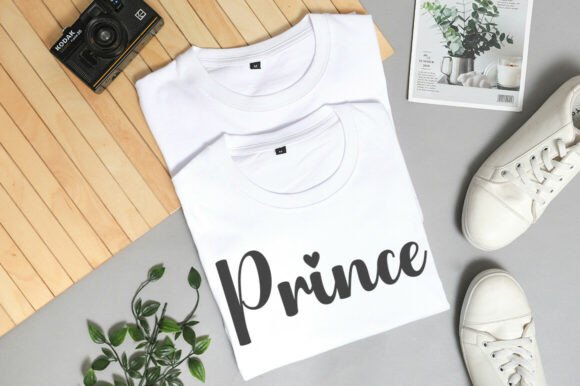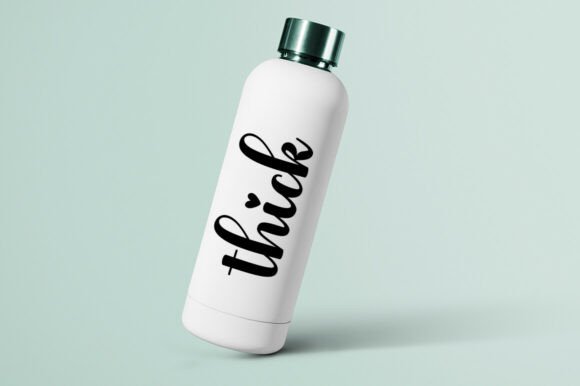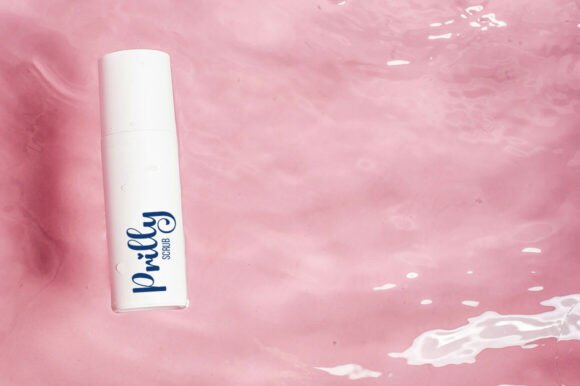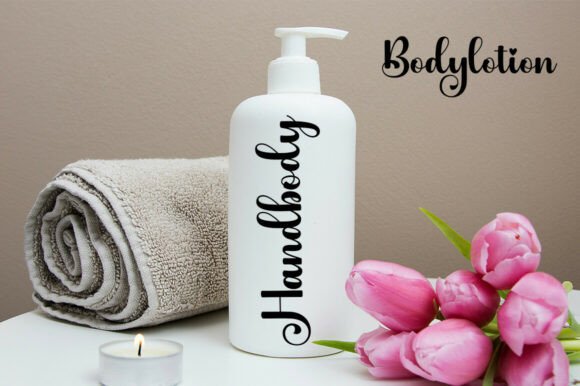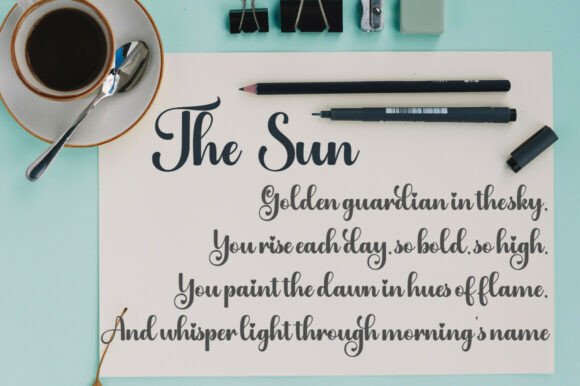
Bali Baby Font: Elevate Your Designs with Elegance and Playfulness
Are you looking for a font that can add a touch of sophistication and whimsy to your designs? Look no further than the Bali Baby Font. This stylish handwritten script font is designed to capture the essence of elegance and playfulness in every stroke, making it perfect for a wide range of creative projects.
The Characteristics of Bali Baby Font
Bali Baby Font is a beautiful example of a handwritten script font that exudes warmth, sophistication, and creativity. Its flowing curves and natural rhythm give it a charming and personal feel that’s perfect for adding a touch of elegance to any design. The font’s graceful design makes it ideal for use in invitations, branding, and social media, where making a lasting impression is crucial.
Why Choose Bali Baby Font?
So, what sets Bali Baby Font apart from other fonts? Here are just a few reasons why designers and crafters love this beautiful font:
• Elegance and Playfulness: Bali Baby Font strikes the perfect balance between elegance and playfulness, making it suitable for a wide range of projects, from formal invitations to social media graphics.
• Unique and Versatile: The font’s unique design and versatility make it perfect for use in various contexts, including branding, advertising, and digital marketing.
• Easy to Read: Despite its elegant and cursive nature, Bali Baby Font is surprisingly easy to read, making it perfect for use in body text as well as headings.
• Highly Customizable: With its extensive range of characters and ligatures, Bali Baby Font can be easily customized to fit your specific design needs.
Using Bali Baby Font in Your Designs
Bali Baby Font is an incredibly versatile font that can be used in a wide range of design projects. Here are just a few ideas to get you started:
• Invitations and Stationery: Add a touch of elegance and sophistication to your wedding invitations, birthday cards, and other stationery with Bali Baby Font.
• Branding and Logo Design: Use Bali Baby Font to create a unique and memorable brand identity that reflects your business’s personality and values.
• Social Media Graphics: Add a touch of whimsy and playfulness to your social media graphics, including Facebook posts, Instagram stories, and Twitter headers.
• Packaging and Product Design: Use Bali Baby Font to add a touch of elegance and sophistication to your product packaging and design.
Tips and Tricks for Working with Bali Baby Font
Here are a few tips and tricks to help you get the most out of Bali Baby Font:
• Experiment with Font Sizes: Bali Baby Font looks great in a wide range of font sizes, from large headings to smaller body text.
• Play with Ligatures: The font’s ligatures can add an extra touch of elegance and sophistication to your designs.
• Mix and Match with Other Fonts: Bali Baby Font pairs well with a wide range of other fonts, so don’t be afraid to experiment with different combinations.
In conclusion, Bali Baby Font is a beautiful and versatile font that’s perfect for designers and crafters looking to add a touch of elegance and playfulness to their designs. With its flowing curves, natural rhythm, and extensive range of characters and ligatures, this font is sure to become a favorite in your design toolkit. So why wait? Download Bali Baby Font today and start elevating your designs to the next level!